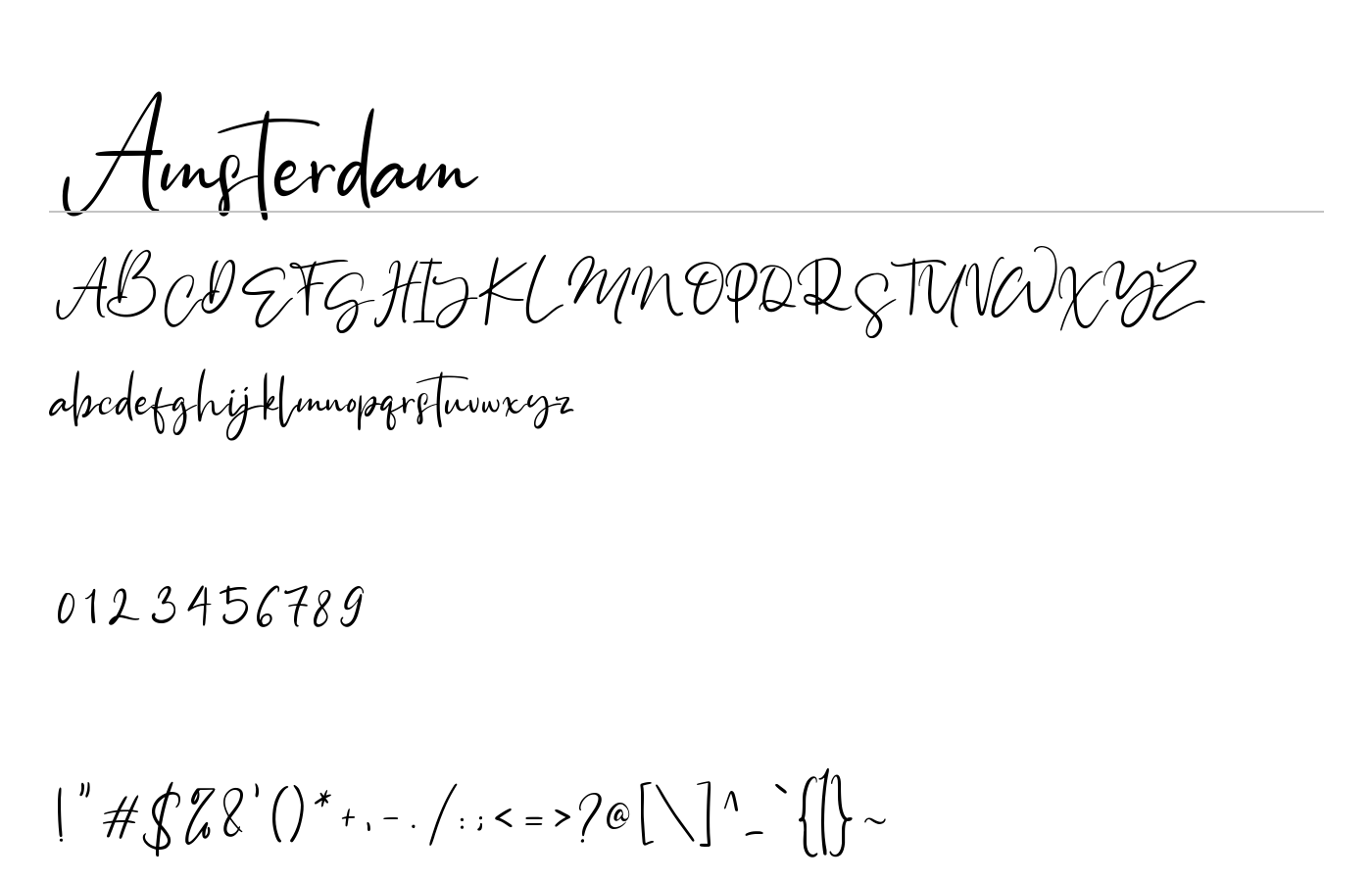
Amsterdam is a delicate, handwritten script font that features thin, flowing strokes with a natural, casual feel. Its elegant, slightly whimsical letterforms and high x-height make it perfect for adding a personal, artistic touch to invitations, branding, and creative projects. This font works best for headlines and logos where a stylish, approachable vibe is desired.
Amsterdam Font
About Amsterdam Font